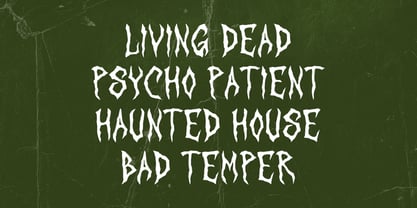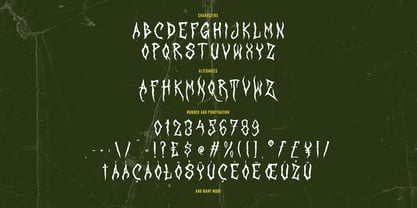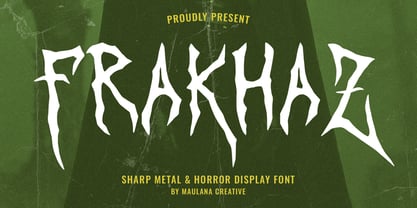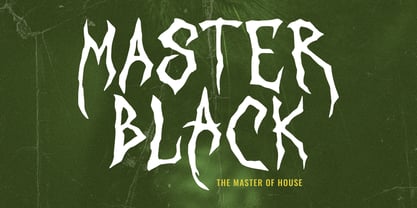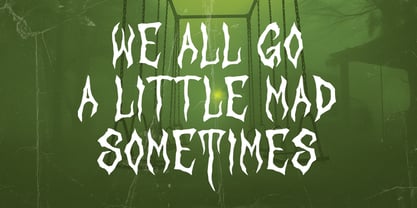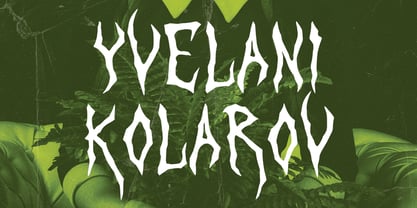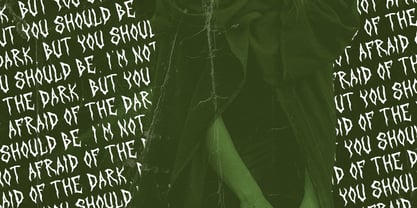
MC Frakhaz
by Maulana Creative
The MC Frakhaz Font Family was designed by Gilang Maulana and published by Maulana Creative. MC Frakhaz contains 1 styles. More about this family
Unleash the darkness with Frakhaz, an aggressive and razor-sharp display font designed for projects that need to scream. Inspired by the raw energy of underground Heavy Metal culture and the chilling aesthetics of classic horror movies, Frakhaz features jagged, thorn-like strokes that give every word a lethal edge. Whether you are designing a death metal band logo, a spine-tingling horror movie, this font provides the perfect balance of chaos and legibility. Its hand drawn, visceral feel ensures your branding stands out with a brutal, authentic personality. Key Features: - Sharp and Aggressive Aesthetic: Perfect for high-impact titles. - Stylistic Alternates: Includes unique character variations to give your typography a custom, hand-lettered look. - Comprehensive Set: Alphabet, numbers, punctuation, and multilingual support. - Versatile Use: Ideal for music album, gaming titles, promotions, and social media branding.
Designers: Gilang Maulana
Foundry: Maulana Creative